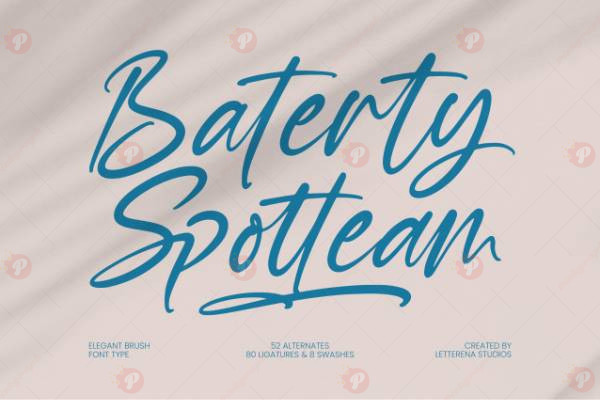
Bring an artistic and modern touch to your designs with the Baterty Spotteam – Elegant Brush Font Free. This hand-painted script typeface combines elegant strokes and natural brush textures, making it perfect for logos, wedding invitations, posters, quotes, product packaging, social media posts, and creative branding projects.
The Baterty Spotteam Brush Font Free stands out with its authentic handmade style, giving your designs a bold yet sophisticated look. Whether you’re designing for fashion, lifestyle brands, or personal creative projects, this font adds a stylish brushstroke charm.
Typeface: Brush / Script
Style: Elegant / Stylish / Hand-painted / Natural
Perfect for: Logos, Invitations, Posters, Quotes, Packaging, Social Media, Branding